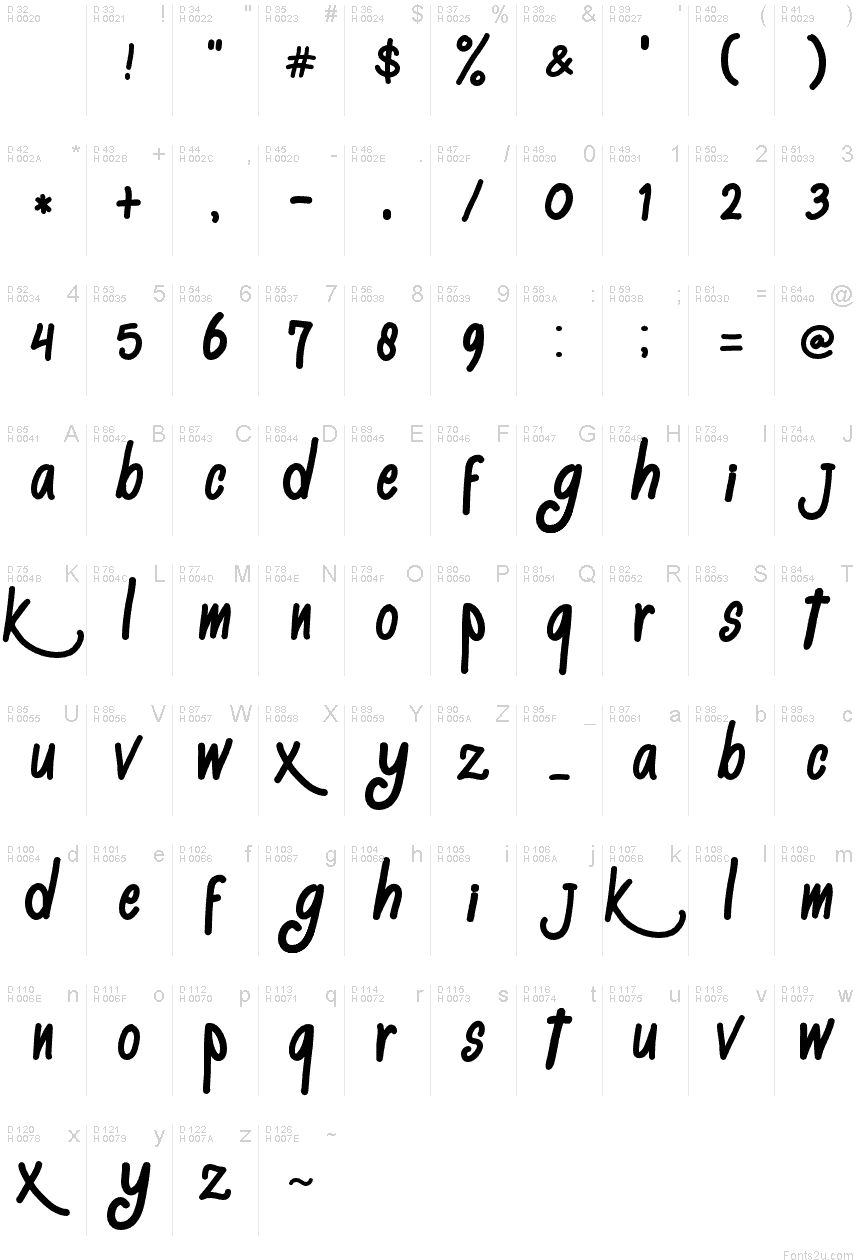
Al Kisah is a free handwritten font with broad, rounded strokes and a lively, forward-moving line. Tall rising letters and a deep looping descender give the otherwise compact writing an unmistakable silhouette.
The soft curves and dark, ink-like weight echo simple character illustration and loose organic shapes, making the lettering useful for children's book covers and friendly food packaging. That same informal sweep suits music posters and casual event graphics, especially when the words need to feel drawn rather than typeset. In editorial design, it can turn a feature title into part of the illustration, particularly for stories about food, crafts, or everyday culture.